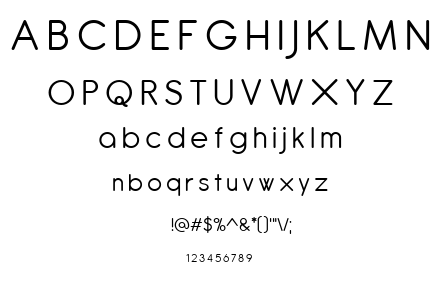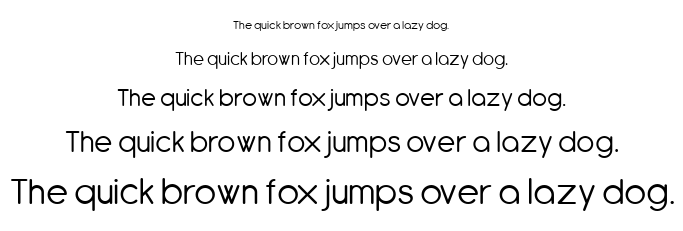
Antipasto is a soft round font and really smart, created by Cosimo Lorenzo Pancini. It is coordinated, compatible and based on Arista font collection by Zetafonts.